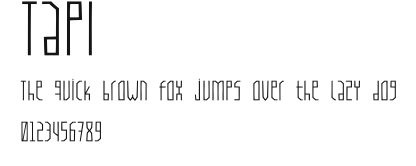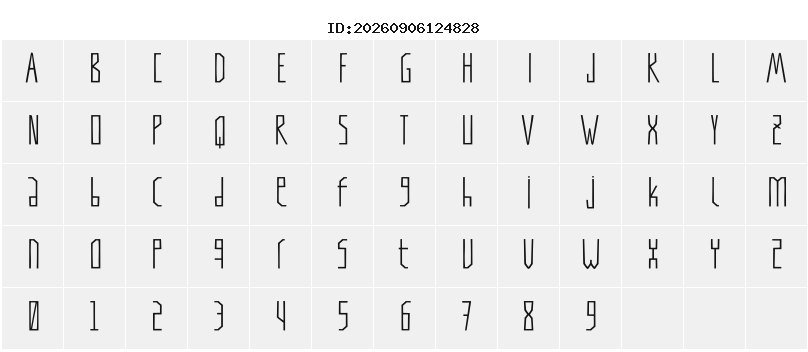
Tapi Preview
• Font Name: Tapi
• Full Font Name: Tapi
About Tapi.ttf
Tapi.ttf is a modern, elegant sans-serif font designed for ultimate readability and visual harmony. Perfect for branding, headlines, web design, and print materials.